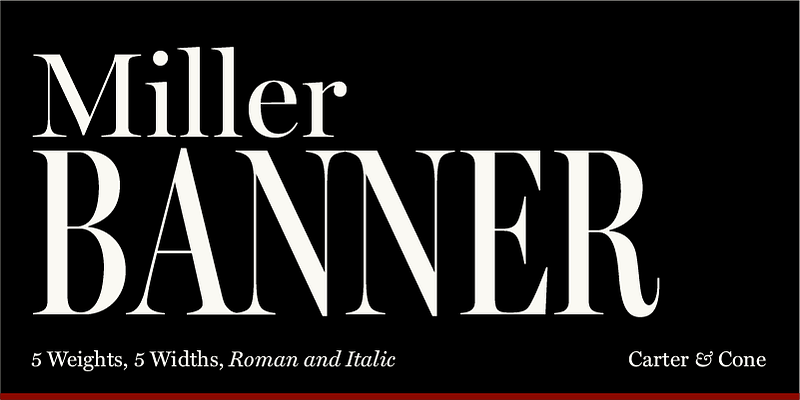
Miller Banner Font Free Download
Miller Banner Font Free Download is the most refined and high-contrast member of the Miller type family, crafted specifically for oversized display use in magazines, fashion editorials, luxury branding, and striking typographic compositions. Designed by Matthew Carter, this typeface is made to shine at very large sizes, where its delicate hairlines and sculpted serifs can be appreciated in full detail.
With its dramatic vertical stress, razor-sharp contrast, and exquisite curves, Miller Banner Font Free Download exudes elegance, sophistication, and classical refinement. It's perfect for use in titles, mastheads, posters, invitations, and high-end print or digital layouts where visual drama and elegance are key.
While it isn’t suited for small sizes due to its fine strokes, that’s exactly what makes it exceptional in large-scale settings. It commands attention with grace—ideal for projects where typography becomes a focal point of the design.
Miller Banner is not just a typeface—it’s a typographic centerpiece. Luxurious, timeless, and meticulously crafted, it brings editorial prestige and visual impact to your most refined design work.